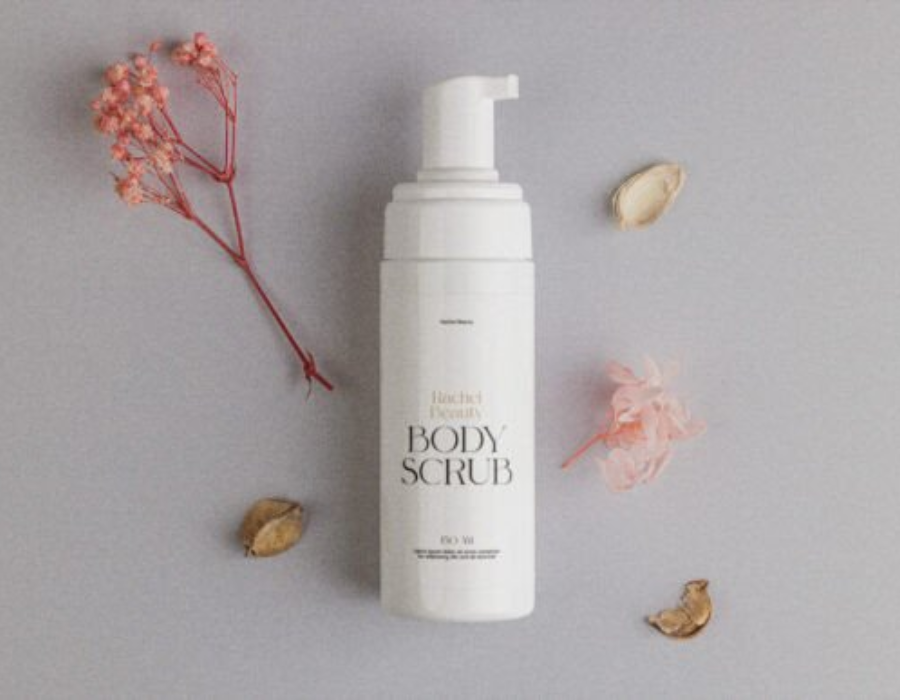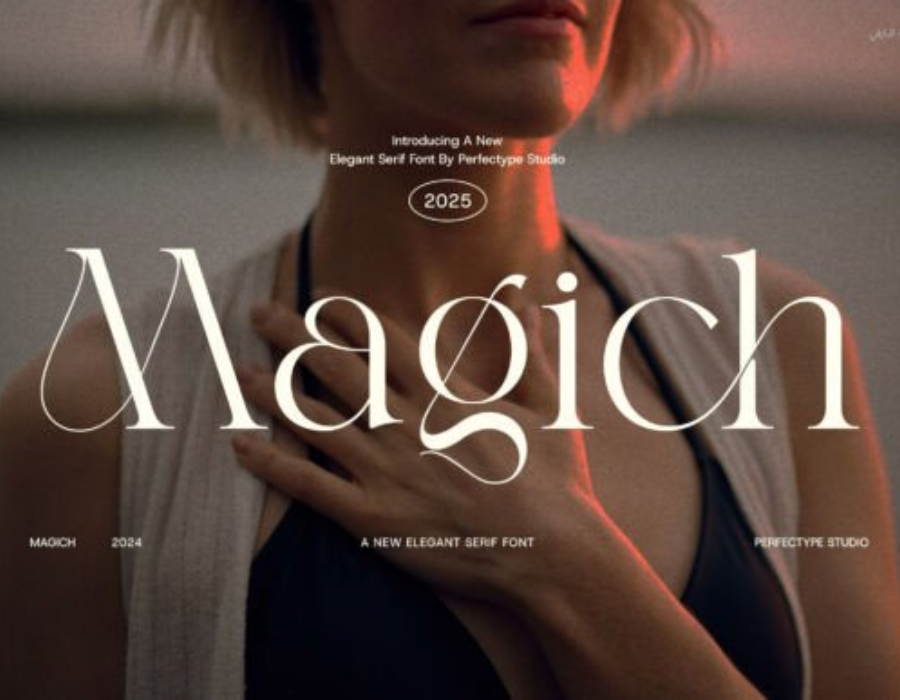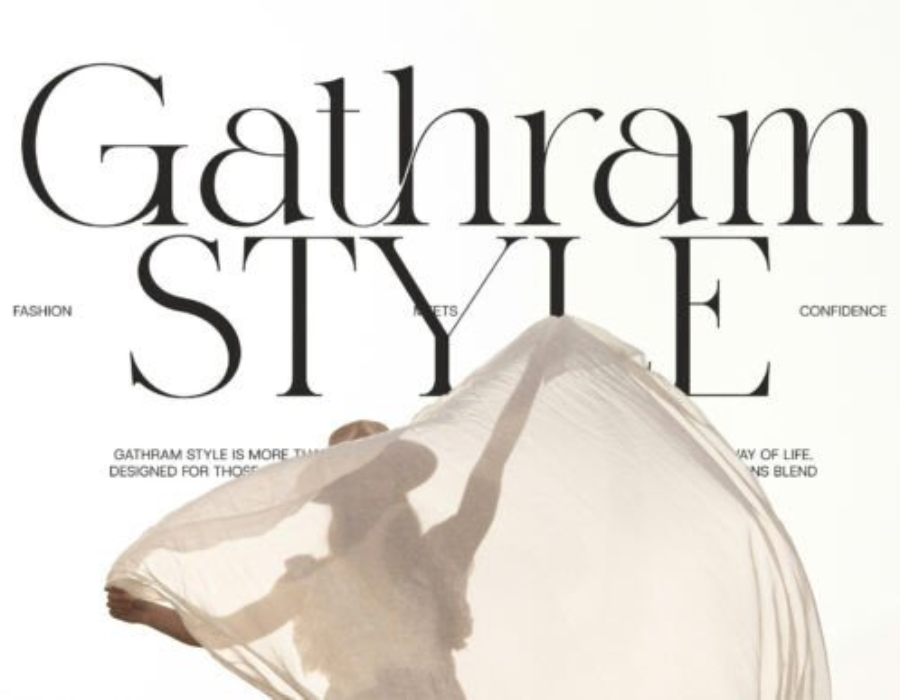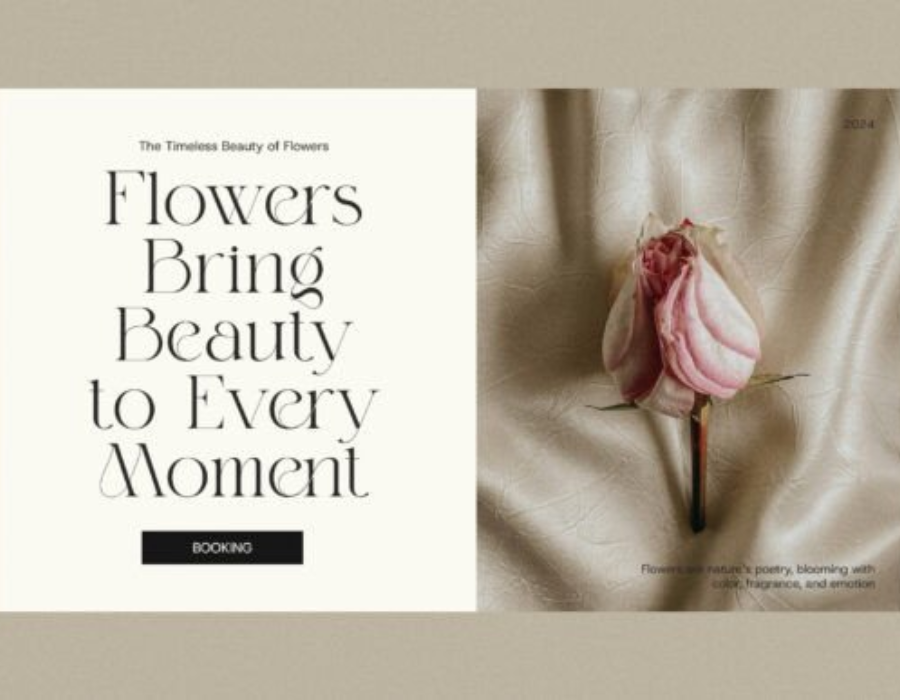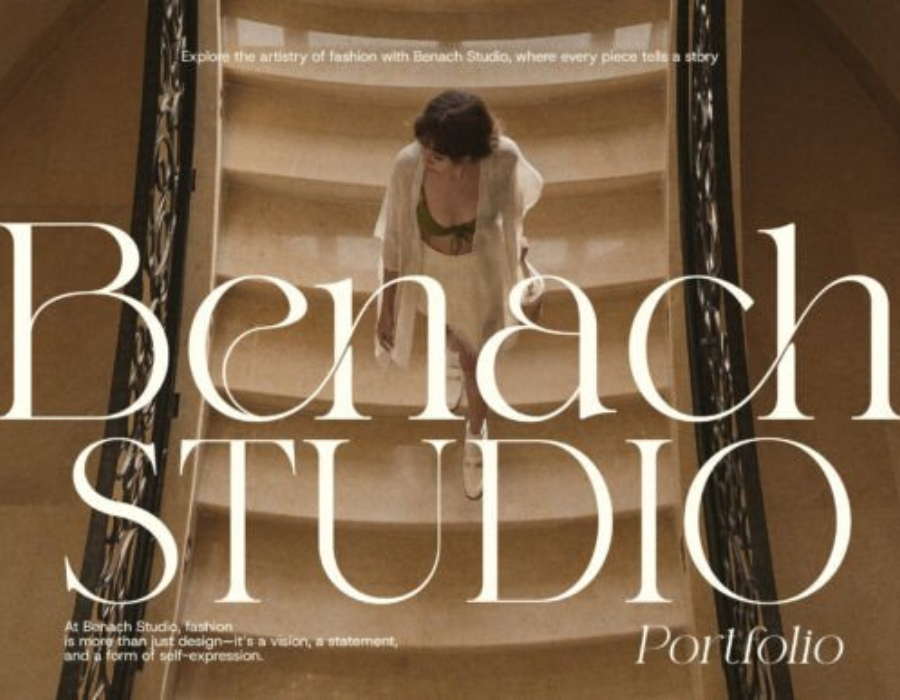
This is Magich Font
Magich Elegant Serif Font is a stylish serif typeface that captures the essence of sophistication with a touch of creative magic. Designed for designers who value precision and personality, Magich combines modern elegance with artistic detail, resulting in a font that is as functional as it is visually captivating.
What sets Magich apart is its distinctive blend of sharp serifs, smooth curves, and gracefully designed ligatures. Each character is thoughtfully crafted to ensure balance, rhythm, and a sense of luxury—making it perfect for projects that require a high-end, editorial feel with a modern twist.